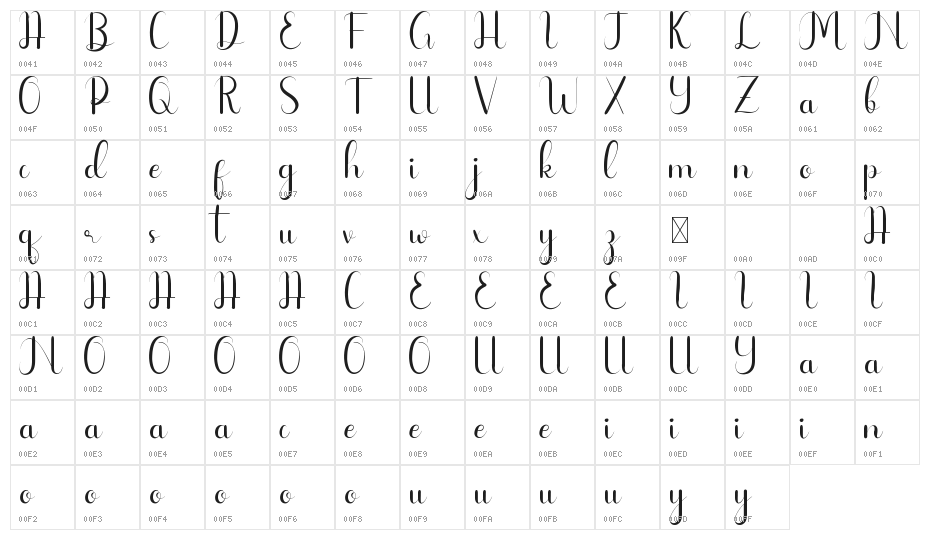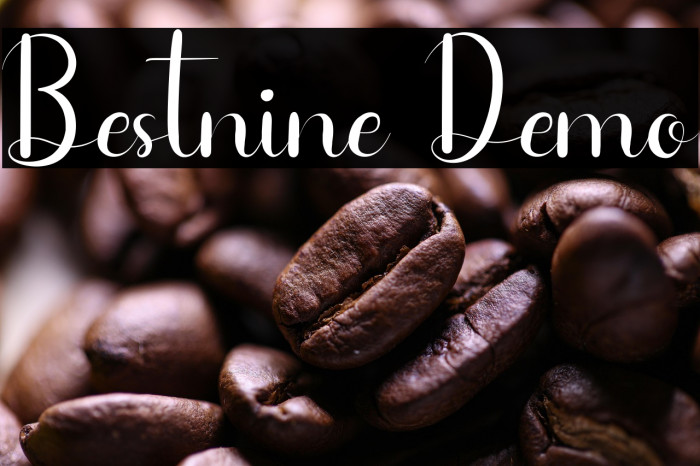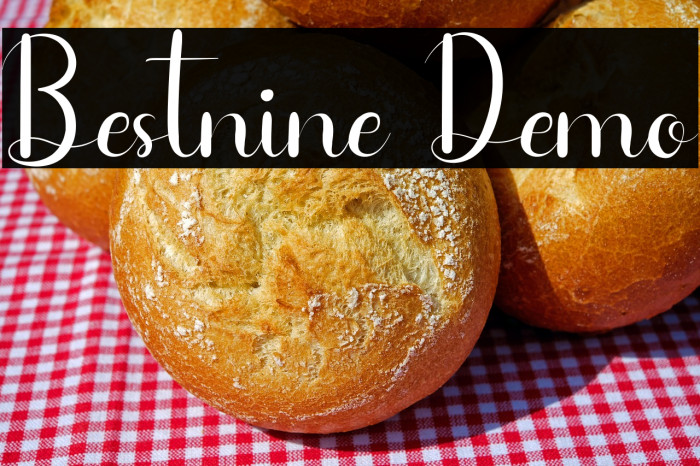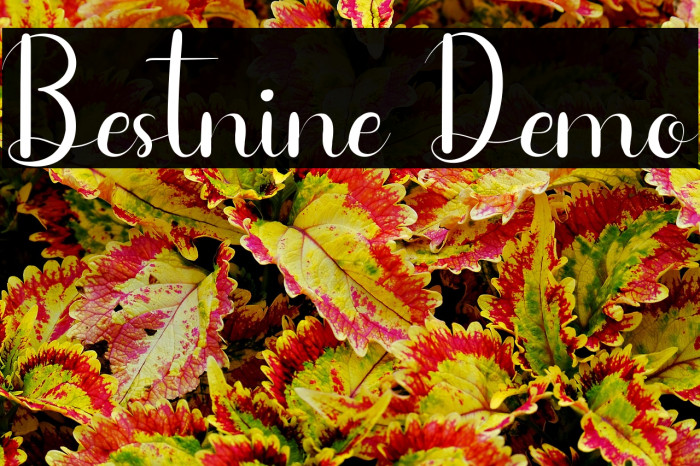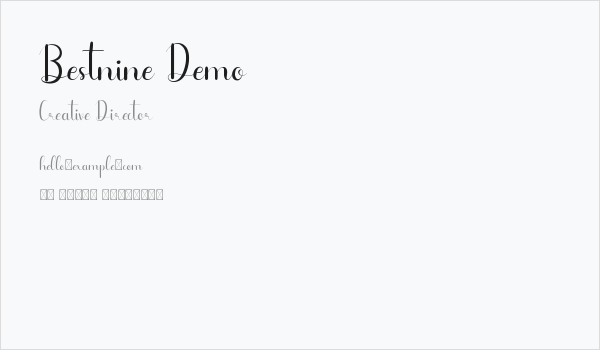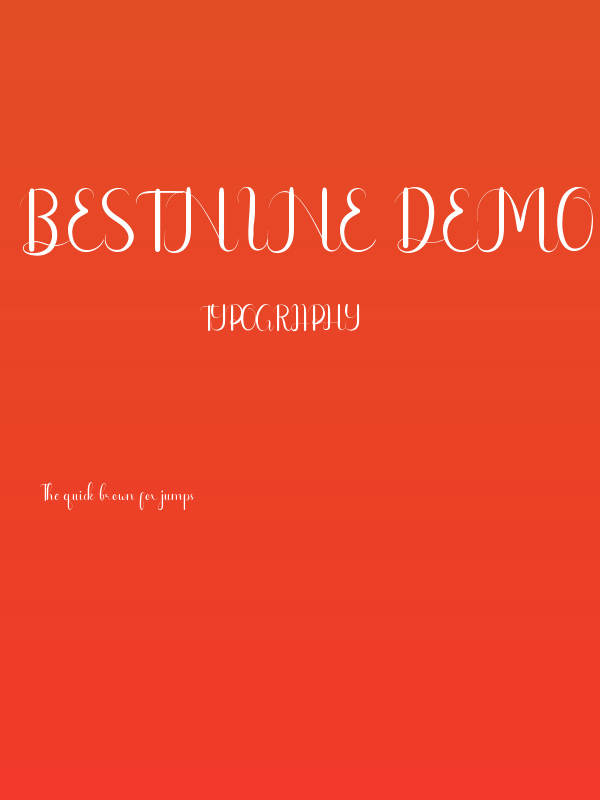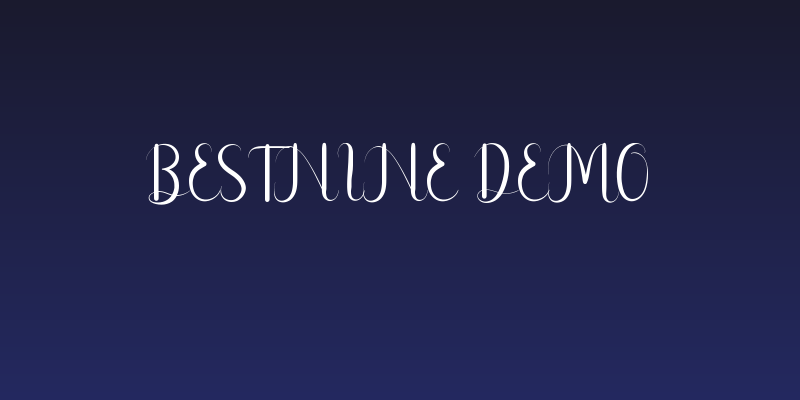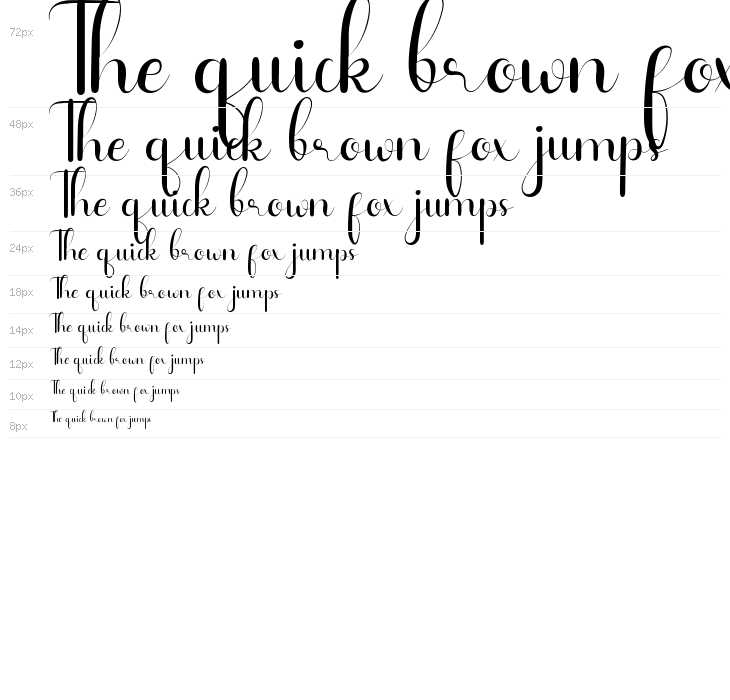
Bestnine Demo Font
Bestnine Demo Description
This font exhibits a unique blend of elegance and modernity, characterized by its flowing script style with high contrast between thick and thin strokes. The uppercase letters are tall and slender, with a graceful curvature that adds a touch of sophistication. The lowercase letters maintain a consistent flow, enhancing readability while retaining an artistic flair. The font's design is both decorative and functional, making it suitable for a variety of creative applications. Its distinctive style is further accentuated by the elongated ascenders and descenders, which contribute to its overall graceful appearance. The numerals and special characters are designed to complement the alphabet, maintaining the same elegant and fluid aesthetic.